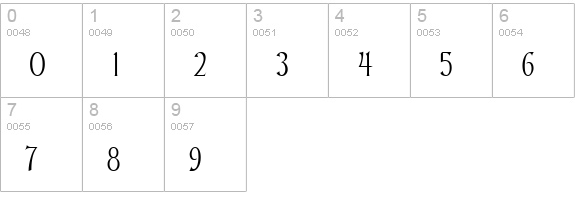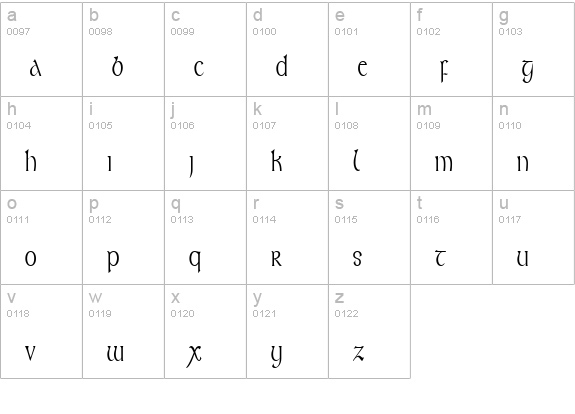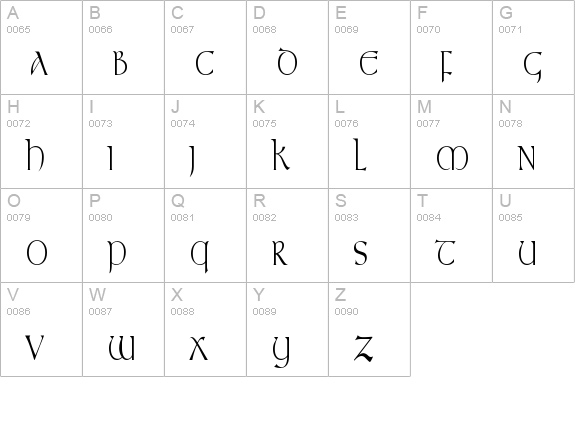
Kelt Thin Normal is a delicate, low-contrast variant in the Kelt typeface family \xE2\x80\x94 well suited to fashion editorial, minimal branding, and high-contrast display.
Kelt Thin Normal is a sleek and elegant font that exudes sophistication and finesse. Its thin and delicate lines give it a refined and modern look, perfect for adding a touch of elegance to any design project. This versatile font is suitable for a wide range of creative applications, from branding and logo design to editorial layouts and website typography. With its clean and legible letterforms, Kelt Thin Normal is easy to read even at smaller sizes, ensuring that your message is conveyed clearly and effectively. Its timeless design makes it a great choice for both print and digital projects, and its thin weight adds a touch of subtlety and sophistication to any design. One of the standout features of Kelt Thin Normal is that it is freely available to download at FontsMarket.com. This means that you can enjoy the benefits of this stunning font without any cost, making it an excellent choice for designers on a budget or those looking for high-quality fonts without breaking the bank. Whether you're designing a logo for a luxury brand, creating a magazine layout, or simply looking to add a touch of elegance to your next project, Kelt Thin Normal is a font that will elevate your design to new heights. Its refined and modern aesthetic, combined with its free availability at FontsMarket.com, makes it a must-have for any designer's toolkit.